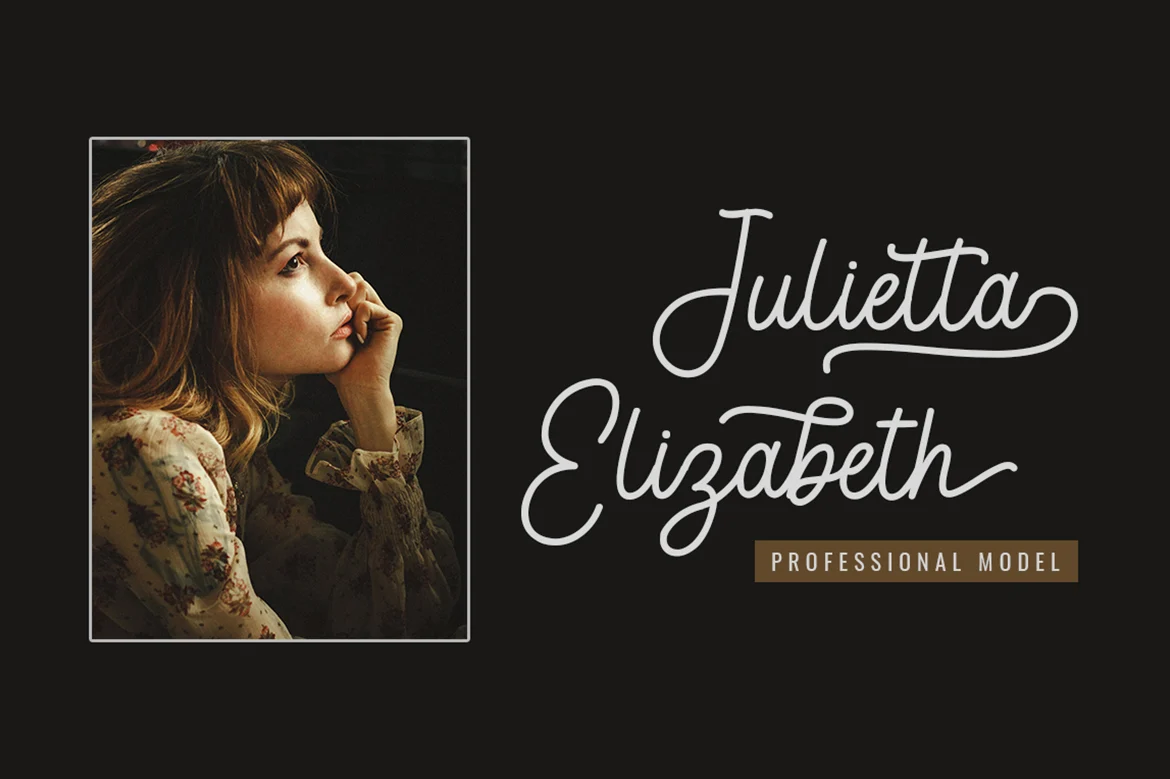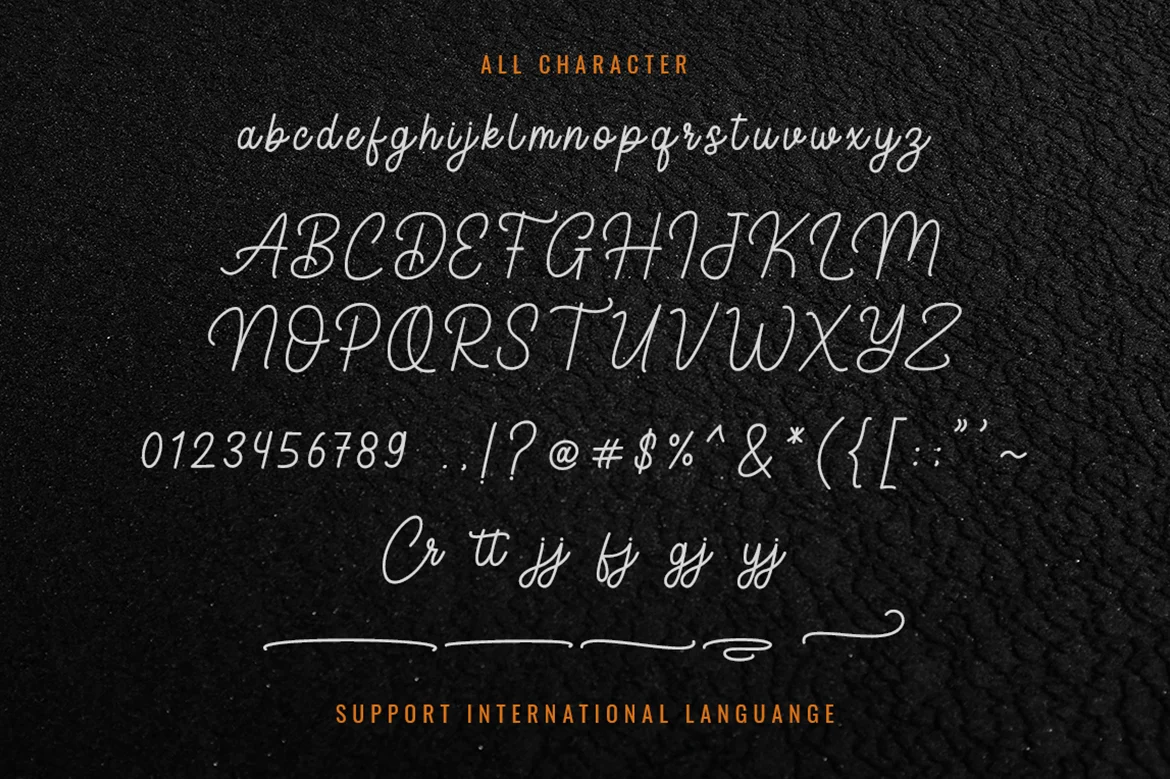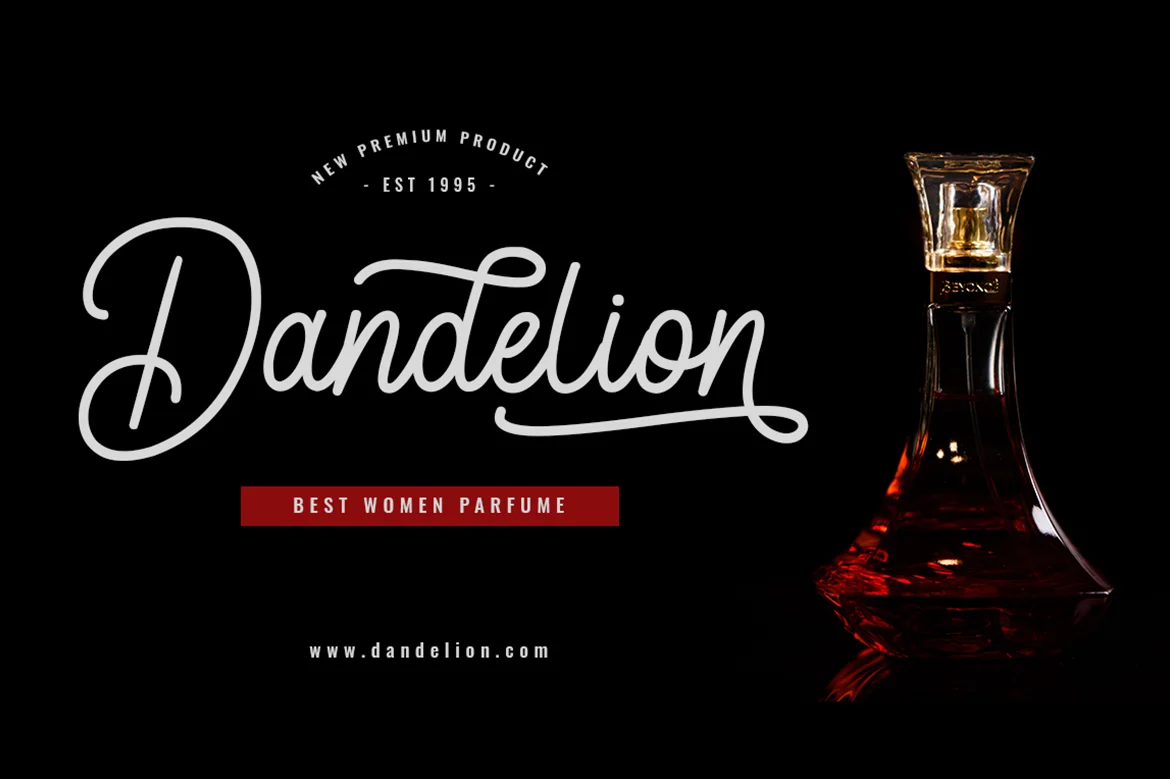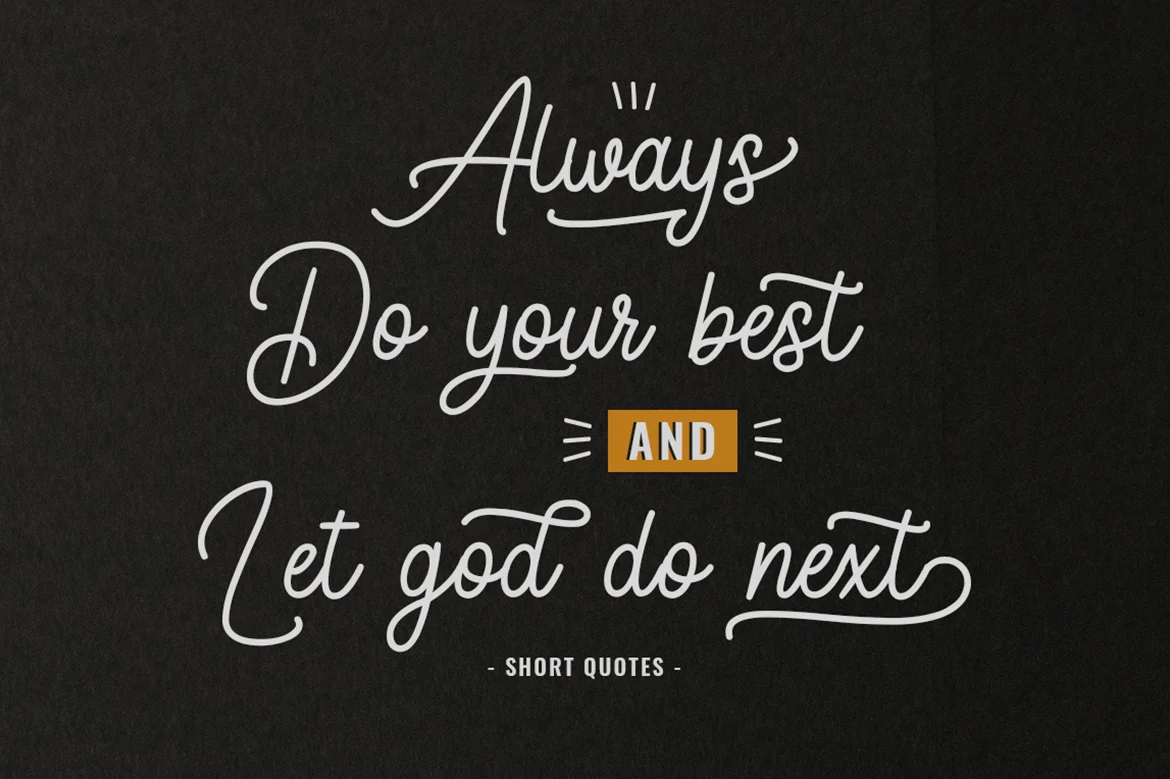
Darlington – Vintage Monoline Font
This is our latest product called Darlington. Darlington sweet and simple script with a vintage feel. Get inspired by its modern simplicity!
- Stylistic Alternates
- Stylistic Sets
- Multilingual Support.